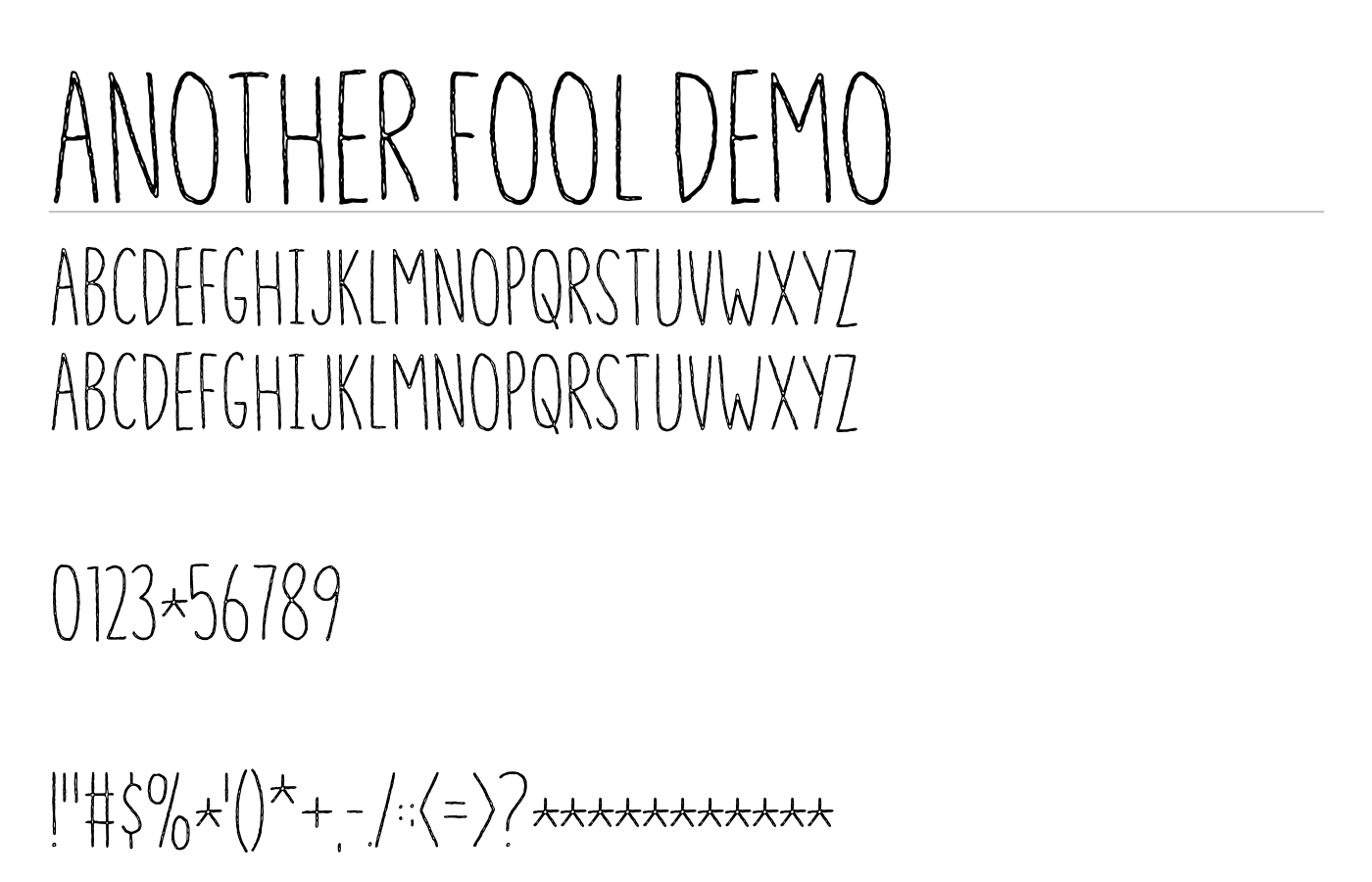
Another Fool DEMO is a tall, narrow handwritten sans serif font characterized by its irregular, sketchy lines that give it a quirky and informal feel. Its playful and slightly uneven letterforms are ideal for creative projects, casual branding, or artistic headlines where a personal, hand-drawn touch is desired. This font works well in settings that benefit from a unique, approachable style, such as posters, invitations, or editorial designs that want to convey creativity and individuality.
Another Fool DEMO Font
About Another Fool DEMO Font
| Font family | Another Fool DEMO Font |
| Designer | Jakob Fischer / pizzadude.dk |